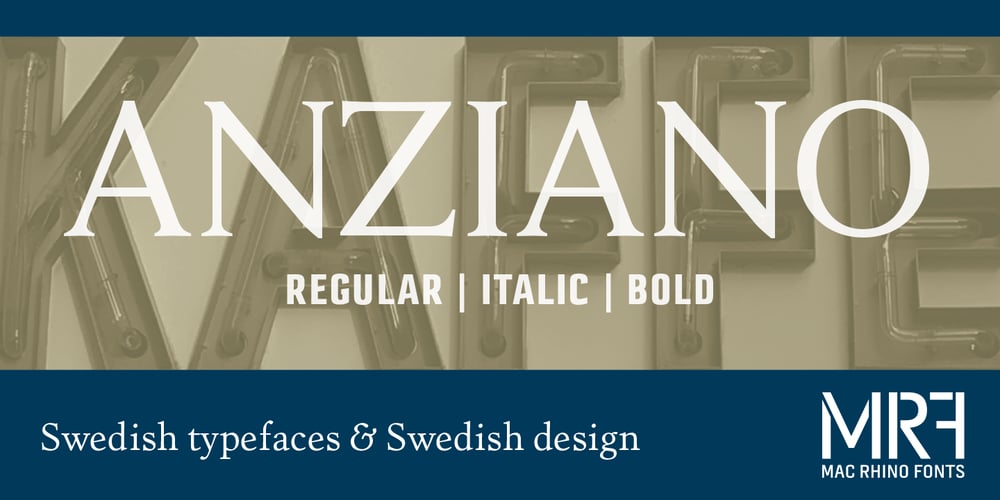
Anziano Pro Font Family was designed by Stefan Hattenbach and published by MAC Rhino Fonts. Anziano Pro contains 3 styles and family package options. Anziano follows the direction staked out with Delicato. When creating traditional typefaces, it is inevitable to be influenced by earlier designs. Anziano does show touches of another classic typeface – Weiss (by Emil Rudolf Weiss, 1926). Weiss is often misjudged and overlooked. Perhaps the most well known Swedish typeface – Berling (by Karl-Erik Forsberg, 1914–1995) is actually based largely on Weiss. MRF have appreciated the design of Weiss uprights for a long time. When Stefan Hattenbach bought the first Swedish edition of The Lord of the Rings (1959–61), in 2004, he was amazed by the excellent flow of the text presented on each page. Despite the very original character that Weiss has, it was a pleasure to read a book set in such a typeface. MRF realized that several major foundries had already done interpretations of Weiss, more or less true to the original. MRF didn’t want to add on to that list! Instead Stefan tried to find his own path. Anziano consists of three core styles, Regular, Italic and Bold; each with small caps, ornaments, stylistic ligatures, and extended Latin accents. Lining, tabular, oldstyle and smallcap numerals help round out Anziano’s typographic range and function.